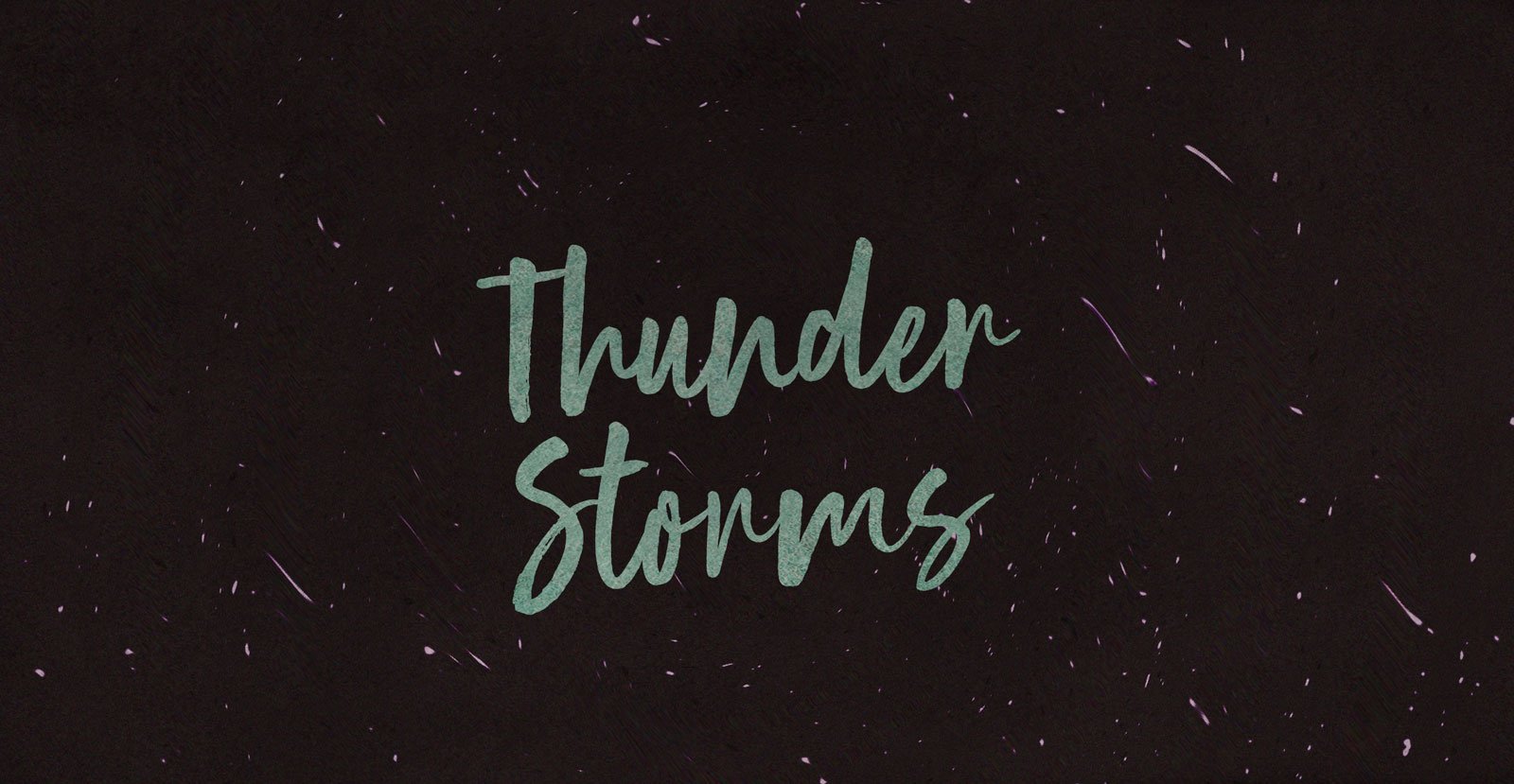
Human Nature Script Font
Finding tribes fractious, our best impulses radicalize. Well within Human Nature to nurture, you explore the breadth of normal, I plumb the depths of what’s up. Finally kind, we’ll meet in the corner where our curves can’t fit.
Classification: | Brush, Script |